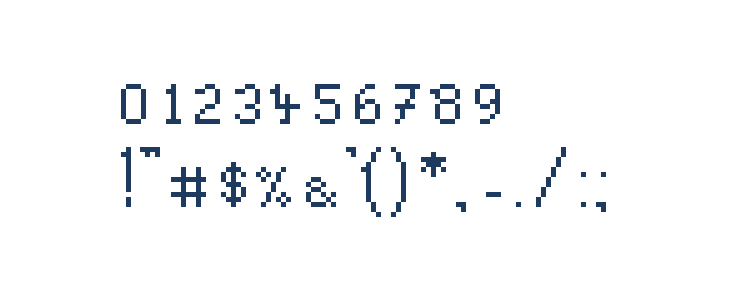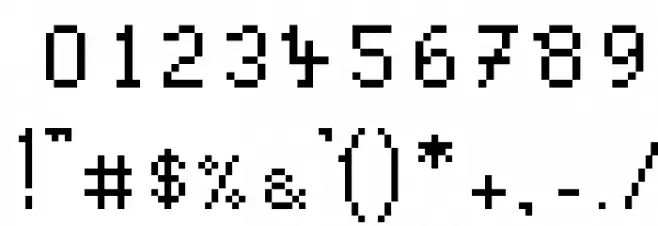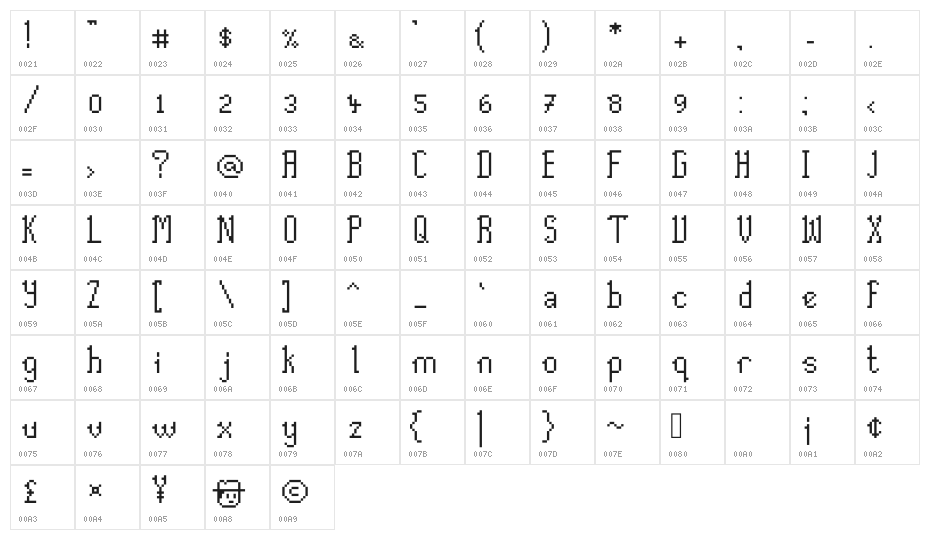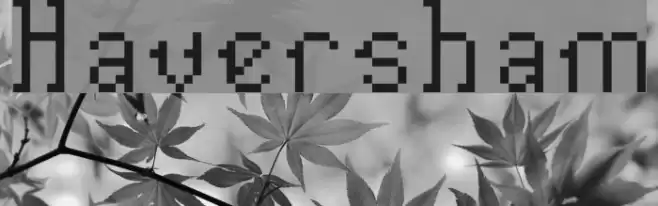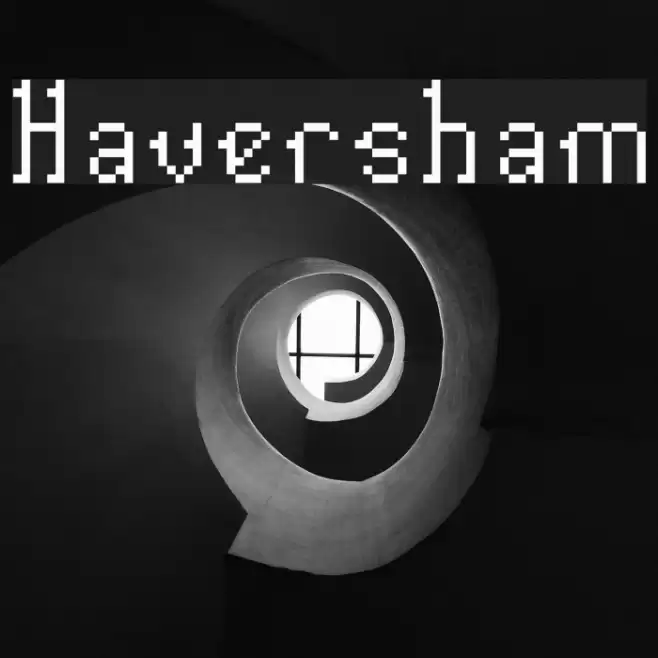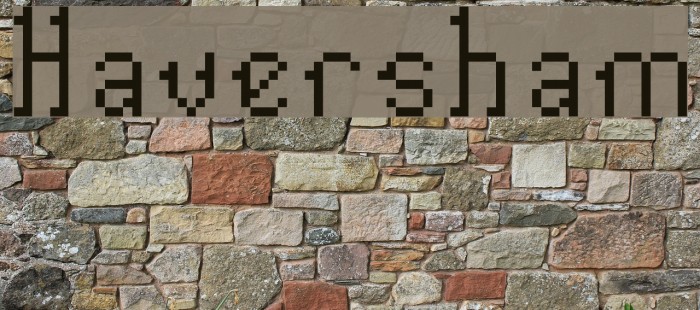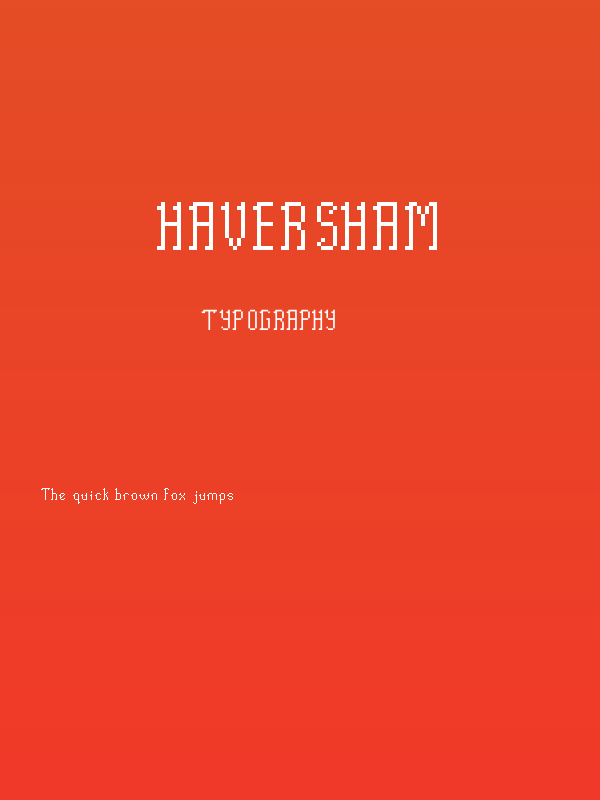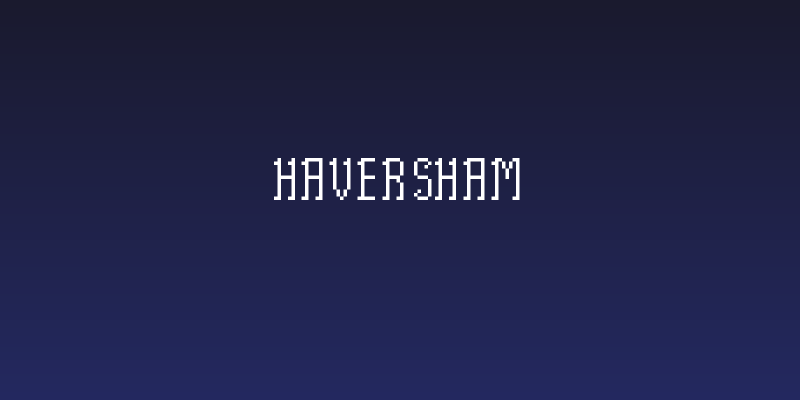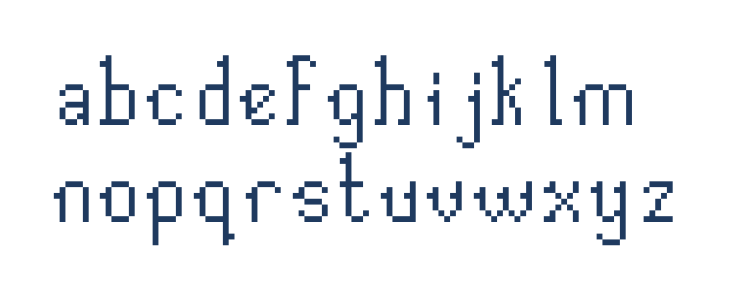
Haversham Font
Haversham Description
This font features a pixelated, grid-like structure reminiscent of early digital displays and retro video games. The characters are composed of small, square blocks, giving it a distinctly digital and geometric appearance. Each letter and number is uniformly spaced and maintains a consistent height, contributing to a clean and organized look. The uppercase and lowercase letters share a similar design, with slight variations in height and width. The numerals are clear and easily distinguishable, while the special characters maintain the same pixelated style, ensuring cohesion across all glyphs. This font's unique style makes it stand out, particularly in digital and tech-themed contexts.
| Use Case | Logos, Headlines, Digital Art |
| Proposed Projects | Ideal for retro video game designs, tech-themed posters, digital art projects, and any creative work that requires a nostalgic digital aesthetic. |